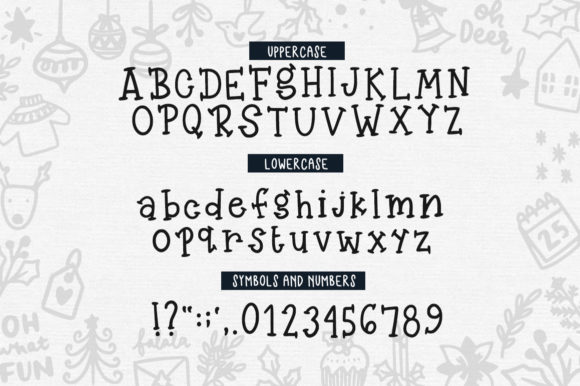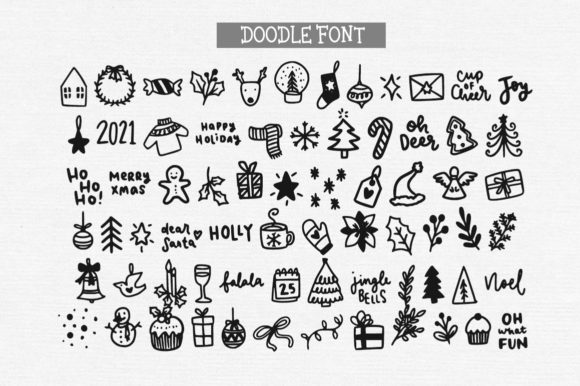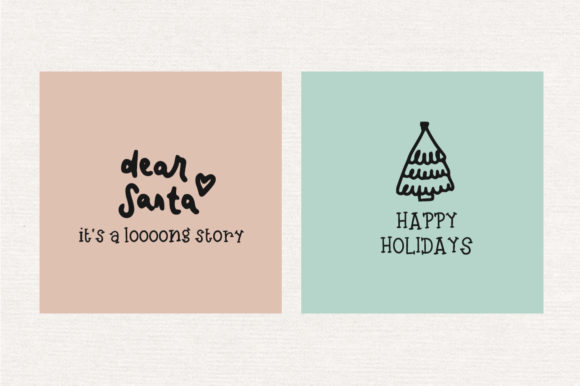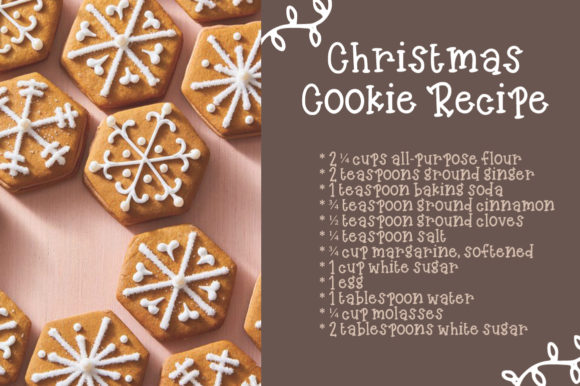
Introducing Christmas Joy Font: A Fun and Quirky Duo for the Holiday Season
Are you looking for a unique and playful font to make your Christmas designs stand out? Look no further than Christmas Joy Font, a fun and quirky duo font that combines a charming serif font with a delightful dingbats font. This versatile font duo is perfect for designers and crafters who want to add a touch of festive cheer to their branding logos, greeting cards, and holiday-themed projects.
What Makes Christmas Joy Font So Special?
Christmas Joy Font is a carefully crafted duo font that includes a beautiful serif font and a matching dingbats font. The serif font features elegant and refined lettering with a subtle vintage touch, while the dingbats font is packed with festive icons and symbols that will add a playful touch to your designs. The combination of these two fonts creates a unique and eye-catching visual style that’s perfect for the holiday season.
Use Christmas Joy Font for Your Branding Logo
As a designer, you know how important it is to create a strong brand identity. With Christmas Joy Font, you can create a unique and memorable logo that captures the spirit of the holiday season. The serif font is perfect for creating a professional-looking logo, while the dingbats font adds a touch of whimsy and fun. Whether you’re designing a logo for a holiday-themed business or a seasonal promotion, Christmas Joy Font is the perfect choice.
Create Stunning Greeting Cards with Christmas Joy Font
If you’re a crafter or a DIY enthusiast, you’ll love using Christmas Joy Font to create your own greeting cards and holiday-themed projects. The dingbats font is packed with festive icons, such as snowflakes, holly leaves, and Christmas trees, that you can use to add a personal touch to your cards. The serif font is perfect for writing heartfelt messages or creating beautiful headings. With Christmas Joy Font, you can create stunning greeting cards that will make your loved ones feel special.
Key Features of Christmas Joy Font
- Fun and quirky duo font: Includes a serif font and a matching dingbats font
- Festive icons and symbols: Dingbats font features a range of festive icons, including snowflakes, holly leaves, and Christmas trees
- Elegant and refined lettering: Serif font features beautiful, vintage-inspired lettering
- Perfect for holiday-themed projects: Great for creating branding logos, greeting cards, and other holiday-themed designs
Tips and Inspiration for Using Christmas Joy Font
To get the most out of Christmas Joy Font, try experimenting with different font combinations and design styles. Here are a few tips to get you started:
- Mix and match: Combine the serif font with the dingbats font to create a unique and eye-catching visual style
- Add some sparkle: Use the dingbats font to add festive icons and symbols to your designs
- Experiment with colors: Try using different colors and textures to add depth and interest to your designs
| Font Name | Christmas Joy Font |
| Author | Naughty Pen |
Christmas Joy Font is a fun and quirky duo font that’s perfect for designers and crafters who want to add a touch of festive cheer to their holiday-themed projects. With its elegant serif font and playful dingbats font, this font duo is sure to bring joy and magic to your designs. So why wait? Download Christmas Joy Font today and start creating your own unique and memorable holiday designs!